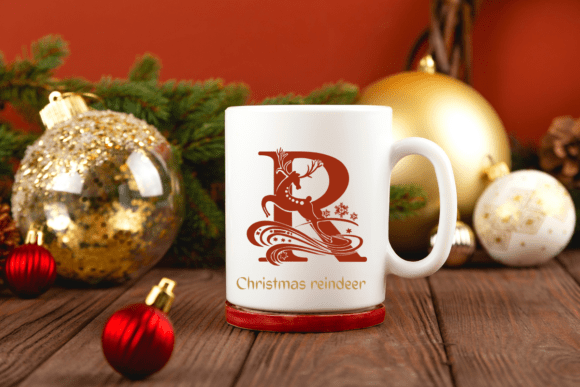
Christmas Reindeer Font
Christmas Reindeer (Decorative Monogram)
Christmas Reindeer is a unique, highly decorative font that transforms the letters of the alphabet into intricate, seasonal monogram illustrations featuring the iconic reindeer motif.
This is not a standard text font but an exceptional dingbat or decorative asset where each letter serves as a pre-designed, detailed festive artwork. The glyphs feature bold letterforms intertwined with a beautifully detailed reindeer, snowflakes, and swirling ribbons and stars, offering a complete holiday design element in a single character.
This specialized font is an absolute must-have for holiday-themed crafting, engraving, and cutting projects. It is perfectly designed for creating stunning monogrammed gifts, unique ornaments, personalized door signs, festive embroidery patterns, and custom vinyl decals. The high detail and clear vector shape (implied by its decorative nature) ensure that whether you are using a cutting machine or creating a digital holiday card, your initialed design will be eye-catching, sophisticated, and instantly festive.